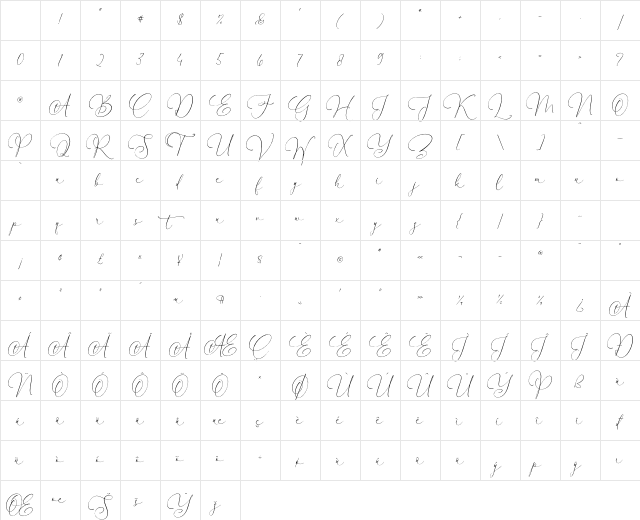
Complete Waltson Beauty Regular glyph index. Displaying only characters natively supported by Waltson Beauty Regular font.
Waltson Beauty is a composed and adaptable typeface that performs quietly and consistently across a wide range of design contexts.